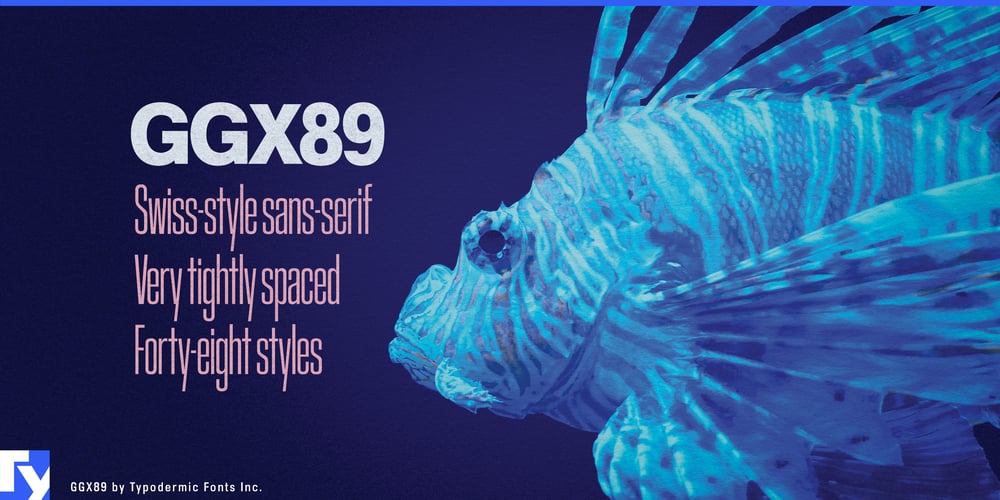
Ggx89
Ggx89 font
Ggx89 Font Family was designed by Ray Larabie and published by Typodermic. Ggx89 contains 48 styles and family package options. Step into the world of refined typography with GGX89, a display typeface that distills the essence of Swiss design into its purest form. This isn’t just another sans-serif font—it’s a masterclass in minimalist elegance, crafted to command attention without shouting.GGX89 pays homage to the iconic mid-20th century typefaces like Helvetica and Univers, but it’s not content to simply mimic the past. It takes the timeless principles of Swiss graphic design—simplicity, clarity, and precision—and refines them for the modern eye. With its tight spacing and sleek lines, GGX89 creates headlines and titles that don’t just catch the eye—they hold it. But GGX89’s sophistication goes beyond mere aesthetics. Its versatility makes it a Swiss Army knife for designers, equally at home in cutting-edge marketing materials, bold advertising campaigns, or refined editorial layouts. It’s a typeface that adapts to your vision, not the other way around.For those moments when you need to move from headlines to body text without missing a beat, GGX89’s companion, GGX88, steps in seamlessly. Together, they form a typographic duet that harmonizes across your entire design, creating a cohesive visual language from the largest title to the smallest footnote. GGX89 isn’t just multilingual—it’s a true global citizen. Supporting an impressive array of Latin-based European, Vietnamese, Greek, and most Cyrillic-based writing systems, it ensures your message maintains its Swiss precision whether you’re designing in Danish or dialoguing in Vietnamese. From Afaan Oromo to Zuni, GGX89 speaks the universal language of elegant design.Choose GGX89 when you need typography that doesn’t just communicate—it elevates. It’s the perfect choice for designs that aim to make a statement with understated confidence. Let GGX89 be the voice of your boldest ideas, transforming ordinary text into extraordinary visual experiences that linger in the mind long after the first glance.In a world where design often tries too hard, GGX89 stands as a testament to the power of restrained elegance. It’s not just a font; it’s a philosophy of design, distilled into letterforms. Download GGX89 now and bring a touch of timeless sophistication to your next project. Because in the realm of typography, true power lies not in shouting, but in speaking with quiet authority—and GGX89 has mastered the art of the typographic whisper that resonates like a roar.